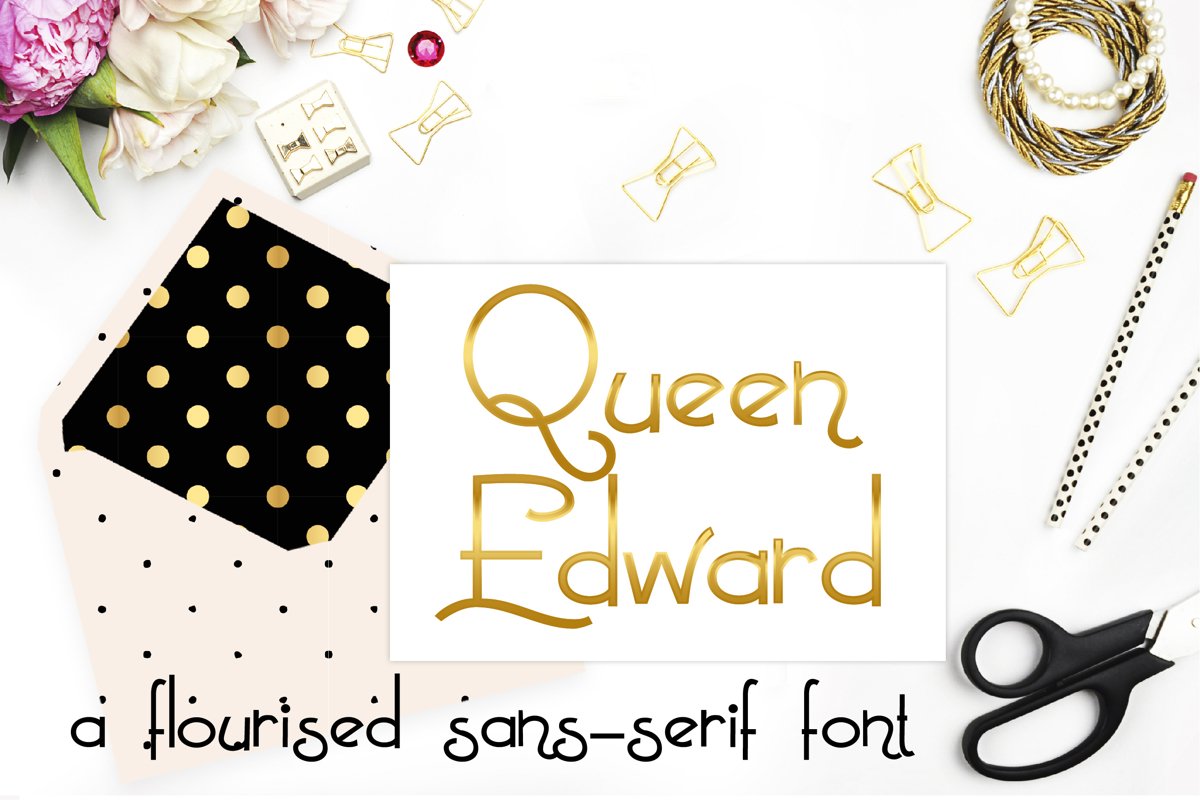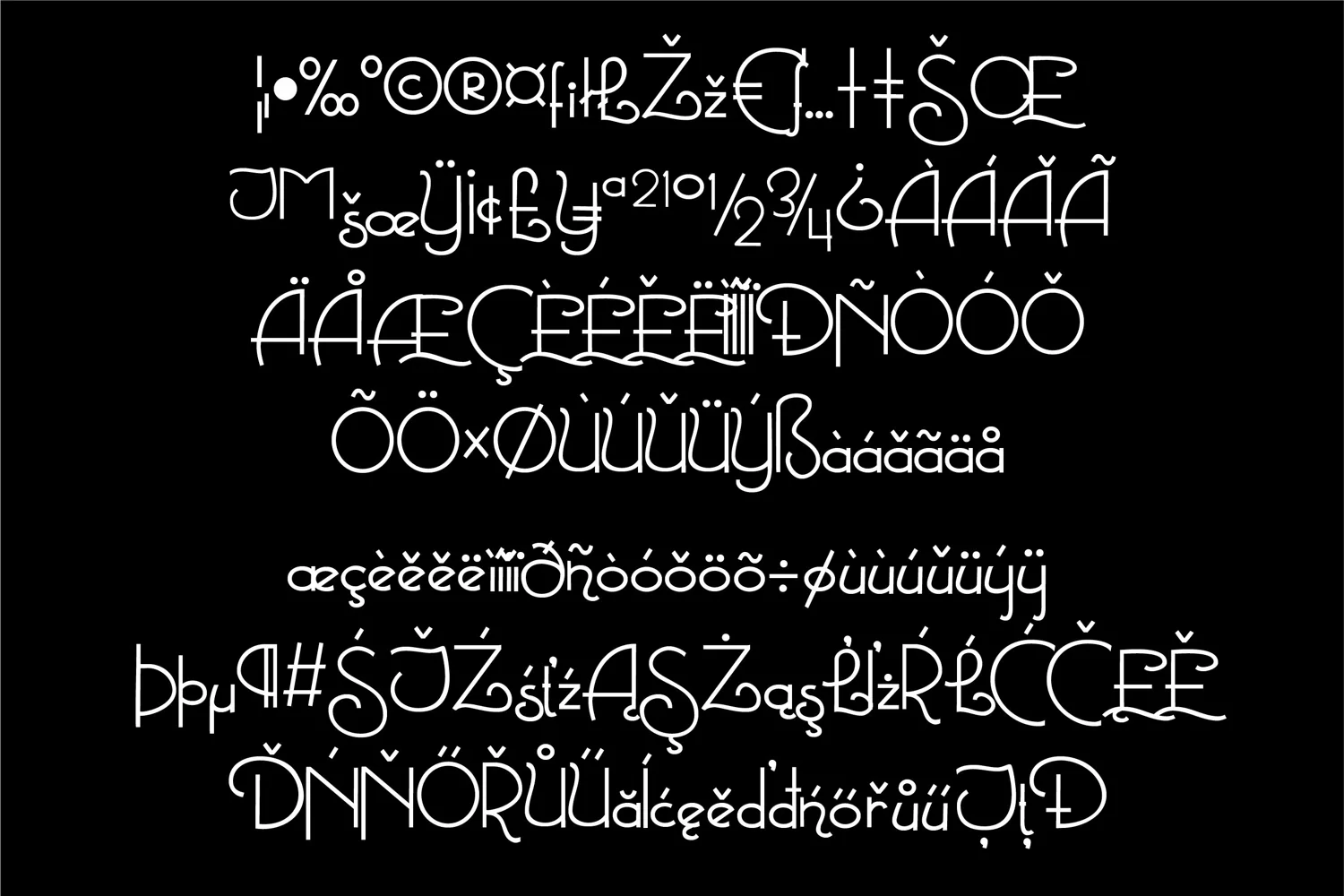
PN Queen Edward
This sans-serif font is a hand-crafted font with some extra flourished throughout. Two weights included.
Multilingual support (standard)